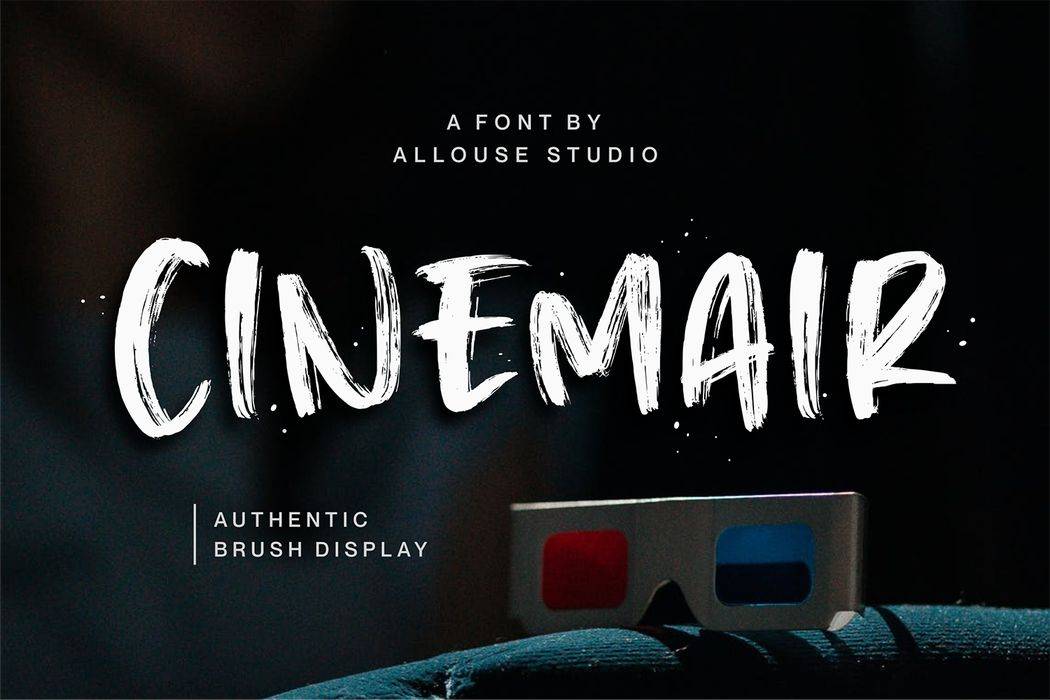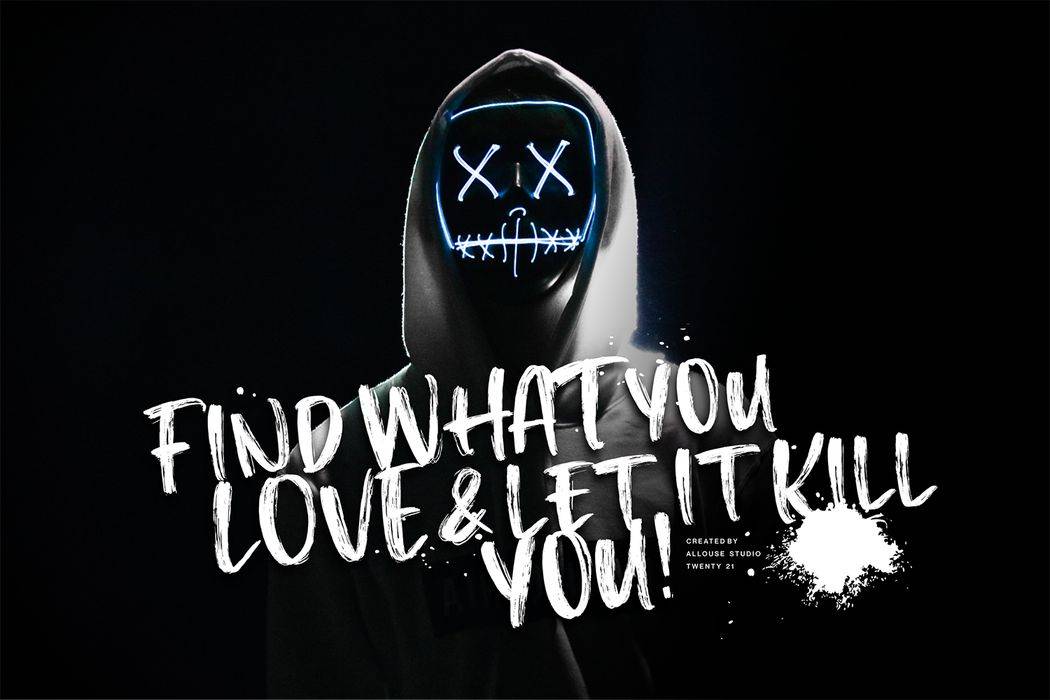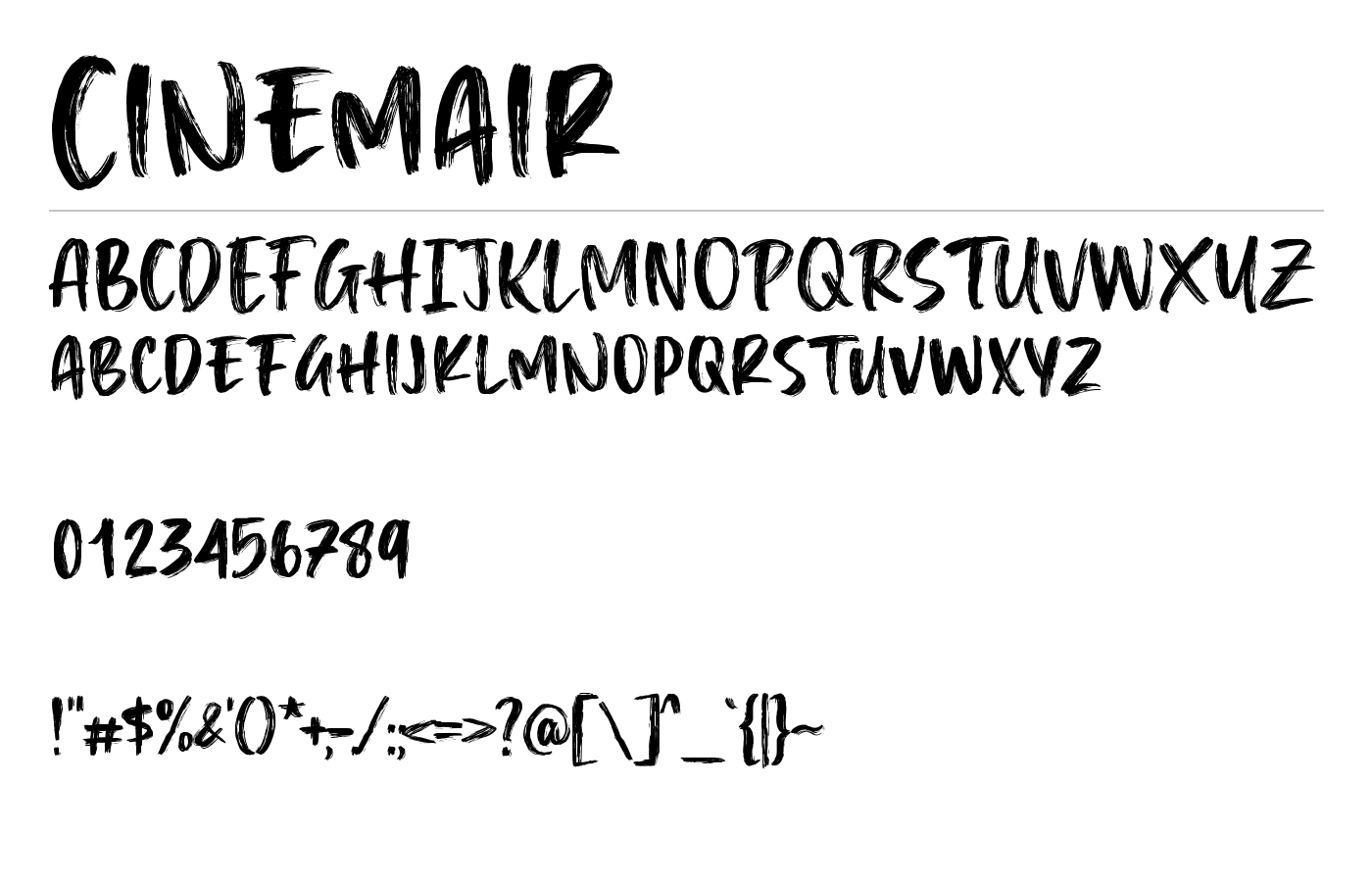
Cinemair is an expressive handwritten font with a bold, textured brushstroke style that brings a lively and artistic feel to any design. Its uppercase letters have a rough, dynamic appearance with natural irregularities, making it perfect for creative projects, posters, and branding that seek a spontaneous, approachable vibe. This font stands out in headlines and display uses, where its energetic personality can truly shine.
Cinemair Font
About Cinemair Font